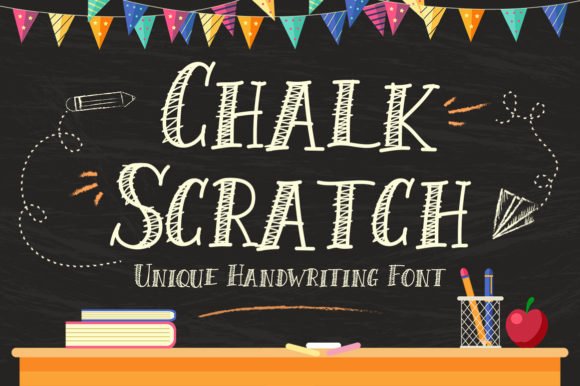
Bring Back the Joy of Childhood with Chalk Scratch Font
Who hasn’t scribbled with chalk on a sidewalk or created a makeshift chalkboard in their backyard? Those carefree days of childhood are the perfect inspiration for a font that’s as playful as it is charming. Chalk Scratch Font is here to bring back those memories and add a dash of whimsy to your designs.
This display font is perfect for kids’ projects, school assignments, and even educational materials that need a touch of warmth and personality. With its childlike playfulness, Chalk Scratch Font is a valuable addition to any designer’s toolkit. Whether you’re creating a brochure, flyer, or social media graphic, this font is sure to add a smile to your audience’s face.
Key Features of Chalk Scratch Font
- Unique Characteristics: Distressed, handwritten, and rough texture, giving it a vintage and artistic feel
- Font Style: Script, Casual, and Handwritten, making it suitable for various design applications
Chalk Scratch Font Review
Overall, I think the Chalk Scratch Font is a solid choice for designers looking for a distressed, hand-drawn aesthetic. Here’s what I like about it:
- ✨ The font’s imperfections and irregularities give it a unique, organic feel that’s perfect for creative projects.
- ✨ The font is highly customizable, with a range of weights and styles to choose from.
- ✨ The font’s distressed texture adds a sense of grit and character to text, making it ideal for titles, headings, and other display text.
- ⚠️ The font may be too ornate or busy for some designs, particularly those with complex layouts or small text.
- ⚠️ The font’s imperfections can sometimes make it difficult to read, particularly for long blocks of text.
Overall, I think the Chalk Scratch Font is a great choice for designers who want to add a touch of whimsy and personality to their projects. While it may not be suitable for every design, it’s a great option for creative projects where a unique, hand-drawn aesthetic is desired.
The Chalk Scratch Font is ideal for:
- Creating a distressed or vintage look.
- Adding a playful or whimsical touch to your design.
- Highlighting important information or creating a sense of urgency.
Remember to experiment with different font sizes, colors, and styles to get the most out of this unique font.